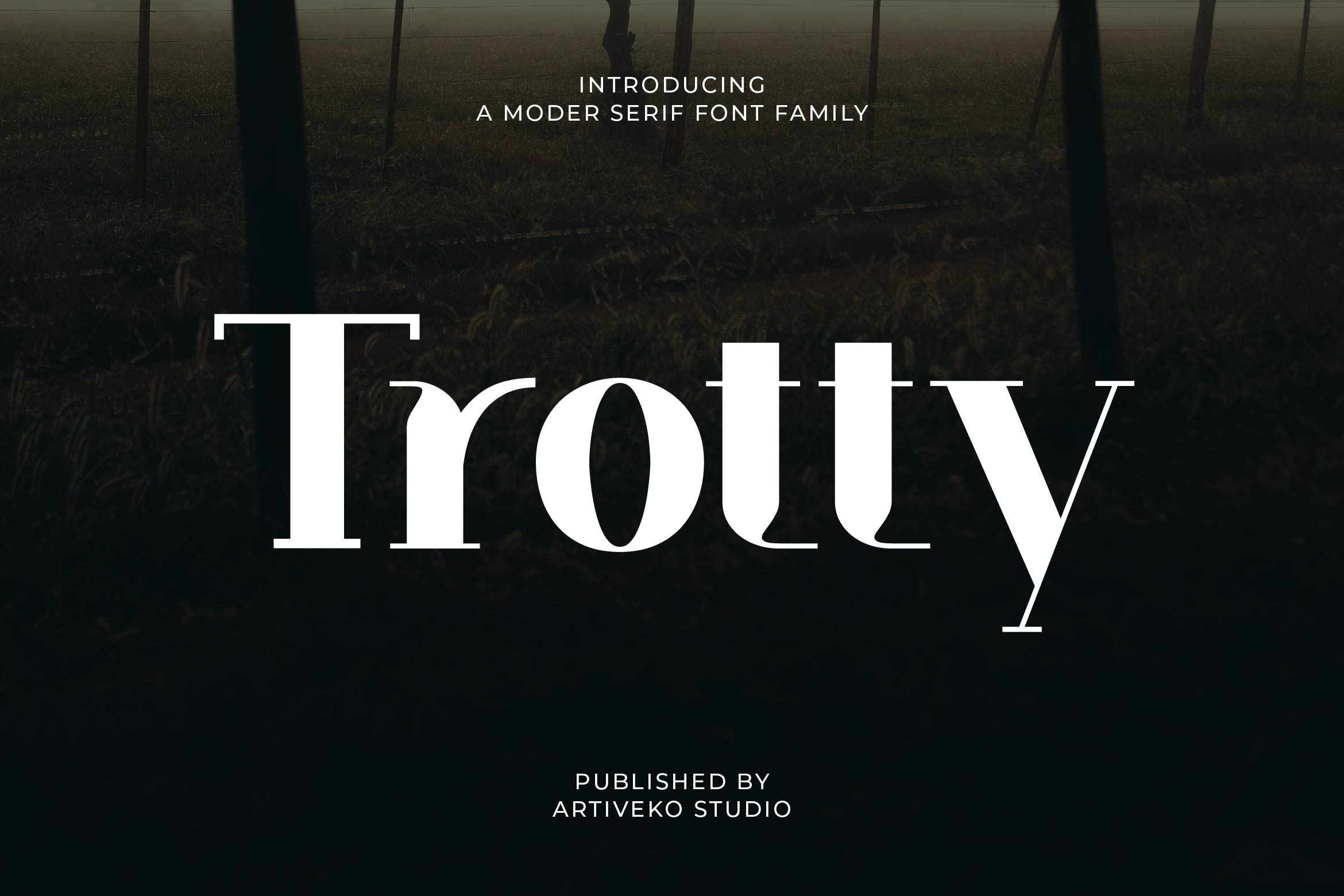
- Trotty Elegant Serif Font Family
Trotty is an elegant serif font family crafted with graceful curves, refined contrast, and a luxurious sense of balance. Designed to bring sophistication to modern branding, Trotty blends classic serif beauty with a fresh contemporary touch—making it perfect for editorial layouts, logos, packaging, wedding stationery, fashion branding, and high-end marketing visuals.
With its smooth serif details and polished proportions, Trotty delivers exceptional readability while maintaining a distinctive and memorable character. Each weight in the family enhances versatility, allowing designers to create harmonious hierarchies from bold headlines to delicate body text.
The Trotty family includes multiple weights, uppercase and lowercase letters, numerals, punctuation, multilingual support, and stylistic alternates for added elegance in every project.
Elevate your visual identity with Trotty—an elegant serif font family that embodies timeless style and modern refinement.